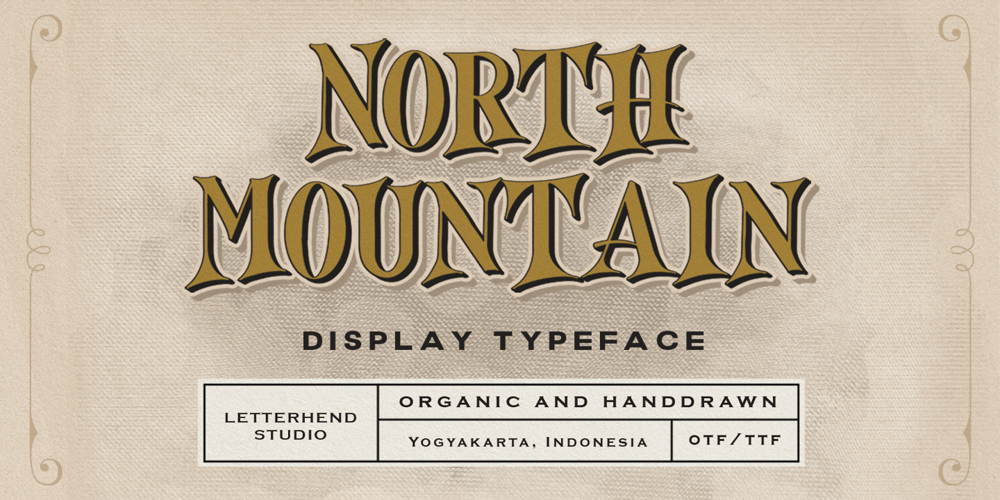
North Mountain Font Family was designed by Hendry Juanda and published by Letterhend. North Mountain contains 1 styles and family package options. Introducing, North Mountain – A nostalgic display typeface. The sharp edges make this font looks great and standout for tittle, headline, logo, etc. There are three styles, regular, edge, stamp. Perfectly to be applied to the other various formal forms such as invitations, labels, logos, magazines, books, greeting / wedding cards, packaging, fashion, make up, stationery, novels, labels or any type of advertising purpose.Features : uppercase & lowercase numbers and punctuation multilingual alternates & ligatures PUA encoded We highly recommend using a program that supports OpenType features and Glyphs panels like many of Adobe apps and Corel Draw, so you can see and access all Glyph variations.